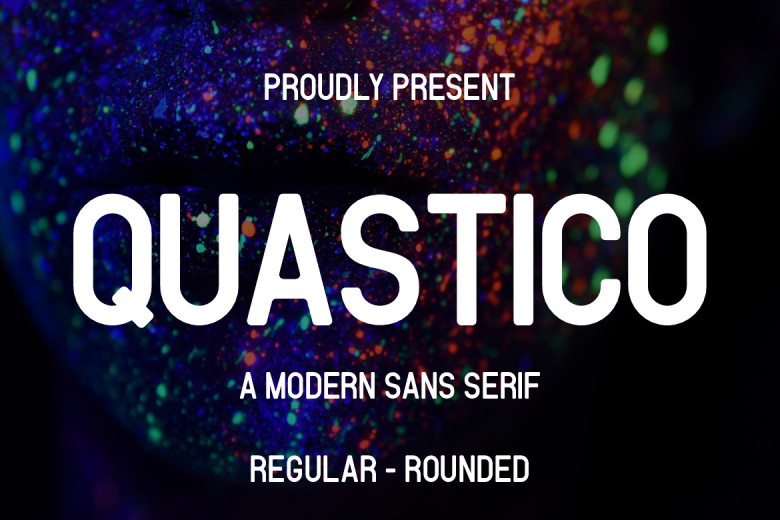
Quastico offers a modern sans serif style that is both elegant and stylish. Its minimal yet clean letterforms ooze confidence and professionalism, making this font perfect for many design projects.
Quastico’s versatility and legibility make it the ideal font choice for branding, editorial designs, web interfaces and other applications requiring an elegant modern aesthetic.
Quastico Sans Serif Font